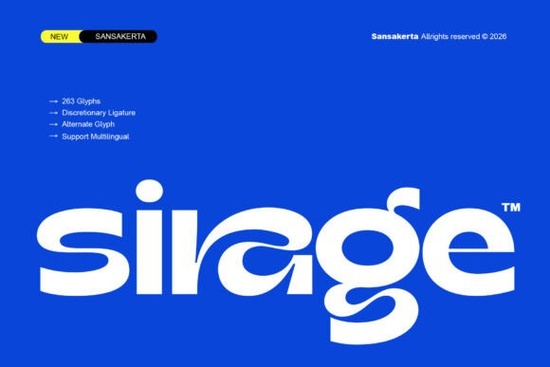
If you're looking for a modern sans serif font that balances boldness with clean lines and just enough personality, Sirage Font is worth a closer look. Designed for creatives who want something distinctive without sacrificing readability, Sirage brings a fresh, experimental edge to branding, social graphics, packaging, and more.
What sets Sirage apart isn’t just its strong visual presence it’s how thoughtfully it’s built. The typeface includes alternate characters and stylish ligatures that let you fine-tune your design’s tone. Whether you’re crafting a logo for a startup or designing an eye-catching poster, these extras give you room to experiment while keeping everything cohesive.
Who is Sirage Font best for?
Sirage works especially well for:
- Small business owners creating their own branding materials
- Print-on-demand sellers designing product mockups or t-shirt graphics
- Graphic designers working on editorial layouts or digital campaigns
- Crafters and hobbyists making custom invitations, stickers, or wall art
Because it’s highly legible even at larger sizes, it’s great for headlines, banners, and any project where you want your message to stand out clearly. Its smooth curves and contemporary letterforms feel current without leaning into trends that might date quickly.
How does it compare to other modern sans serifs?
If you’ve explored fonts like Glavoire, you’ll notice Sirage has a bolder, more geometric foundation but with expressive details in the terminals and joints that keep it from feeling sterile. Meanwhile, Brighter leans lighter and airier, making it better suited for body text or softer aesthetics. Sirage fills a sweet spot: confident enough for logos, versatile enough for layered compositions.
Another standout feature is its PUA (Private Use Area) encoding. This means all those alternate glyphs and ligatures are accessible directly through design software like Adobe Illustrator or Canva no need to dig through character maps manually. Just highlight your text and swap styles using OpenType features.
This flexibility means you can use it seamlessly in print projects, desktop apps, and even on websites. Plus, with multilingual support, it handles accents and characters for Western European languages handy if you’re creating content for diverse audiences.
Tips for using Sirage effectively
Because of its bold weight and distinctive alternates, less is often more. Try these approaches:
- Use uppercase sparingly. While the caps are striking, mixing upper and lowercase often improves flow in longer headlines.
- Pair it with a neutral sans. A simple, lightweight companion font (like Helvetica Neue or Inter) lets Sirage shine as the focal point.
- Experiment with ligatures. Words like “fi,” “fl,” or “st” may have custom connections that add subtle polish.
- Avoid tiny sizes. Its details are meant for display use stick to 18pt or larger for best results.
And if you love Sirage but want to explore similar options, check out other modern sans serif fonts in the same category they often share that balance of minimalism and character.
Before you commit, consider your project’s tone. Sirage excels when you need authority with a creative twist think boutique fitness brands, indie beauty labels, or music festival posters. If your goal is warmth or tradition, a serif or handwritten font might serve you better.